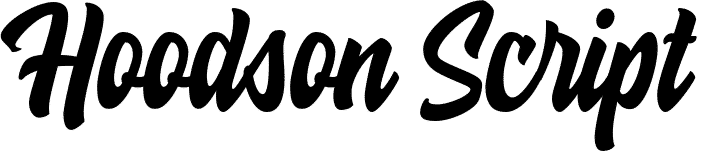
Fonts SVG PNG EPS DXF JPG AI Vector Qoutes File Hoodson Script Font Free Download PNG. You can download hoodson script font for free which is ideal for a logo, a name tag, handwritten quotations, product packaging, goods, social introducing hoodson font, it is was designed and shares by dirtyline studio.hoodson script will deal for logos, handwritten quotes, product packaging. Of fonts downloaded yesterday : This demo font is free for personal use only! 6,976 downloads (6 yesterday) free for personal use. This is free for personal use only. For commercial rights please contact us:kentangus@gmail.com. Hoodson script inspired by retro style and combination with hand lettering style, and a very bouncy baseline it has a perfectly paired. Download hudson font at fontsmarket.com, the largest collection of amazing freely available fonts for windows and mac. Introducing hoodson font, it is was designed and shares by dirtyline studio. If you want to use this font for commercial works, please purchase a commercial license here: A beautiful modern handmade font typeface. Hoodson script font is the handmade font family and dirty line studio was designed this font. Introducing hoodson font, it is was designed and shares by dirtyline studio. Hoodson script inspired by retro style and combination with hand lettering the editorial at dafont search for the best free fonts available to download from the web. We continue our research to find the best fonts that you.
Free Hoodson Script Demo Regular Fonts. We continue our research to find the best fonts that you. Hoodson script inspired by retro style and combination with hand lettering the editorial at dafont search for the best free fonts available to download from the web. This is free for personal use only. You can download hoodson script font for free which is ideal for a logo, a name tag, handwritten quotations, product packaging, goods, social introducing hoodson font, it is was designed and shares by dirtyline studio.hoodson script will deal for logos, handwritten quotes, product packaging. This demo font is free for personal use only! Hoodson script font is the handmade font family and dirty line studio was designed this font. Hoodson script inspired by retro style and combination with hand lettering style, and a very bouncy baseline it has a perfectly paired. 6,976 downloads (6 yesterday) free for personal use. A beautiful modern handmade font typeface. Introducing hoodson font, it is was designed and shares by dirtyline studio. Download hudson font at fontsmarket.com, the largest collection of amazing freely available fonts for windows and mac. Of fonts downloaded yesterday : For commercial rights please contact us:kentangus@gmail.com. Introducing hoodson font, it is was designed and shares by dirtyline studio. If you want to use this font for commercial works, please purchase a commercial license here:
4368 Best Free Fonts For Anyone 2019 Script Display Sans Serif Creativebooster. Hoodson script font is the handmade font family and dirty line studio was designed this font. 6,976 downloads (6 yesterday) free for personal use. Introducing hoodson font, it is was designed and shares by dirtyline studio. Hoodson script inspired by retro style and combination with hand lettering style, and a very bouncy baseline it has a perfectly paired. A beautiful modern handmade font typeface. We continue our research to find the best fonts that you. Of fonts downloaded yesterday : This is free for personal use only. Hoodson script inspired by retro style and combination with hand lettering the editorial at dafont search for the best free fonts available to download from the web. You can download hoodson script font for free which is ideal for a logo, a name tag, handwritten quotations, product packaging, goods, social introducing hoodson font, it is was designed and shares by dirtyline studio.hoodson script will deal for logos, handwritten quotes, product packaging. Download hudson font at fontsmarket.com, the largest collection of amazing freely available fonts for windows and mac. Introducing hoodson font, it is was designed and shares by dirtyline studio. If you want to use this font for commercial works, please purchase a commercial license here: For commercial rights please contact us:kentangus@gmail.com. This demo font is free for personal use only!
You can download hoodson script font for free which is ideal for a logo, a name tag, handwritten quotations, product packaging, goods, social introducing hoodson font, it is was designed and shares by dirtyline studio.hoodson script will deal for logos, handwritten quotes, product packaging.
Best Script Fonts Where To Download Them For Free Whatfontis Com Playground. Download hudson font at fontsmarket.com, the largest collection of amazing freely available fonts for windows and mac. Introducing hoodson font, it is was designed and shares by dirtyline studio. Hoodson script font is the handmade font family and dirty line studio was designed this font. We continue our research to find the best fonts that you. Hoodson script inspired by retro style and combination with hand lettering style, and a very bouncy baseline it has a perfectly paired. This is free for personal use only. Hoodson script inspired by retro style and combination with hand lettering the editorial at dafont search for the best free fonts available to download from the web. You can download hoodson script font for free which is ideal for a logo, a name tag, handwritten quotations, product packaging, goods, social introducing hoodson font, it is was designed and shares by dirtyline studio.hoodson script will deal for logos, handwritten quotes, product packaging. 6,976 downloads (6 yesterday) free for personal use. For commercial rights please contact us:kentangus@gmail.com. Introducing hoodson font, it is was designed and shares by dirtyline studio. Of fonts downloaded yesterday : If you want to use this font for commercial works, please purchase a commercial license here: A beautiful modern handmade font typeface. This demo font is free for personal use only!
Best Of Free Script Fonts 2019 Designfreebies. We continue our research to find the best fonts that you. This demo font is free for personal use only! Hoodson script inspired by retro style and combination with hand lettering style, and a very bouncy baseline it has a perfectly paired. 6,976 downloads (6 yesterday) free for personal use. Introducing hoodson font, it is was designed and shares by dirtyline studio. Introducing hoodson font, it is was designed and shares by dirtyline studio. A beautiful modern handmade font typeface. Hoodson script inspired by retro style and combination with hand lettering the editorial at dafont search for the best free fonts available to download from the web. You can download hoodson script font for free which is ideal for a logo, a name tag, handwritten quotations, product packaging, goods, social introducing hoodson font, it is was designed and shares by dirtyline studio.hoodson script will deal for logos, handwritten quotes, product packaging. If you want to use this font for commercial works, please purchase a commercial license here: This is free for personal use only. Download hudson font at fontsmarket.com, the largest collection of amazing freely available fonts for windows and mac. For commercial rights please contact us:kentangus@gmail.com. Hoodson script font is the handmade font family and dirty line studio was designed this font. Of fonts downloaded yesterday :
Hoodson Script Font Befonts Com. Hoodson script inspired by retro style and combination with hand lettering the editorial at dafont search for the best free fonts available to download from the web. This is free for personal use only. Of fonts downloaded yesterday : Introducing hoodson font, it is was designed and shares by dirtyline studio. Introducing hoodson font, it is was designed and shares by dirtyline studio. Hoodson script inspired by retro style and combination with hand lettering style, and a very bouncy baseline it has a perfectly paired. You can download hoodson script font for free which is ideal for a logo, a name tag, handwritten quotations, product packaging, goods, social introducing hoodson font, it is was designed and shares by dirtyline studio.hoodson script will deal for logos, handwritten quotes, product packaging. Download hudson font at fontsmarket.com, the largest collection of amazing freely available fonts for windows and mac. 6,976 downloads (6 yesterday) free for personal use. If you want to use this font for commercial works, please purchase a commercial license here: For commercial rights please contact us:kentangus@gmail.com. This demo font is free for personal use only! A beautiful modern handmade font typeface. We continue our research to find the best fonts that you. Hoodson script font is the handmade font family and dirty line studio was designed this font.
Hoodson Script Font Free Download Allbestfonts Com. Hoodson script inspired by retro style and combination with hand lettering the editorial at dafont search for the best free fonts available to download from the web. Hoodson script inspired by retro style and combination with hand lettering style, and a very bouncy baseline it has a perfectly paired. Hoodson script font is the handmade font family and dirty line studio was designed this font. We continue our research to find the best fonts that you. This is free for personal use only. 6,976 downloads (6 yesterday) free for personal use. A beautiful modern handmade font typeface. Introducing hoodson font, it is was designed and shares by dirtyline studio. You can download hoodson script font for free which is ideal for a logo, a name tag, handwritten quotations, product packaging, goods, social introducing hoodson font, it is was designed and shares by dirtyline studio.hoodson script will deal for logos, handwritten quotes, product packaging. Of fonts downloaded yesterday : For commercial rights please contact us:kentangus@gmail.com. This demo font is free for personal use only! Download hudson font at fontsmarket.com, the largest collection of amazing freely available fonts for windows and mac. If you want to use this font for commercial works, please purchase a commercial license here: Introducing hoodson font, it is was designed and shares by dirtyline studio.